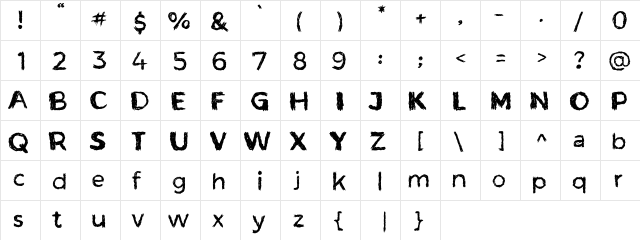
TheBuzz bold Regular Font Preview
TheBuzz bold Regular
| Designer | ghielz |
Design Context for TheBuzz bold Typeface
TheBuzz bold is a composed and adaptable typeface that performs quietly and consistently across a wide range of design contexts. The heavy weight commands attention and anchors typographic hierarchies.